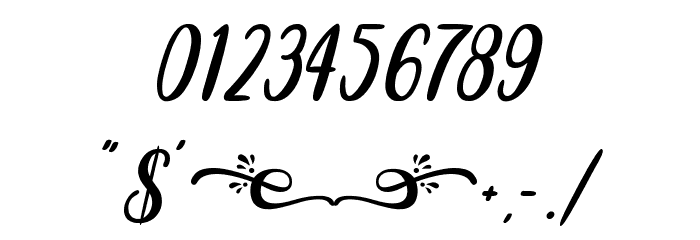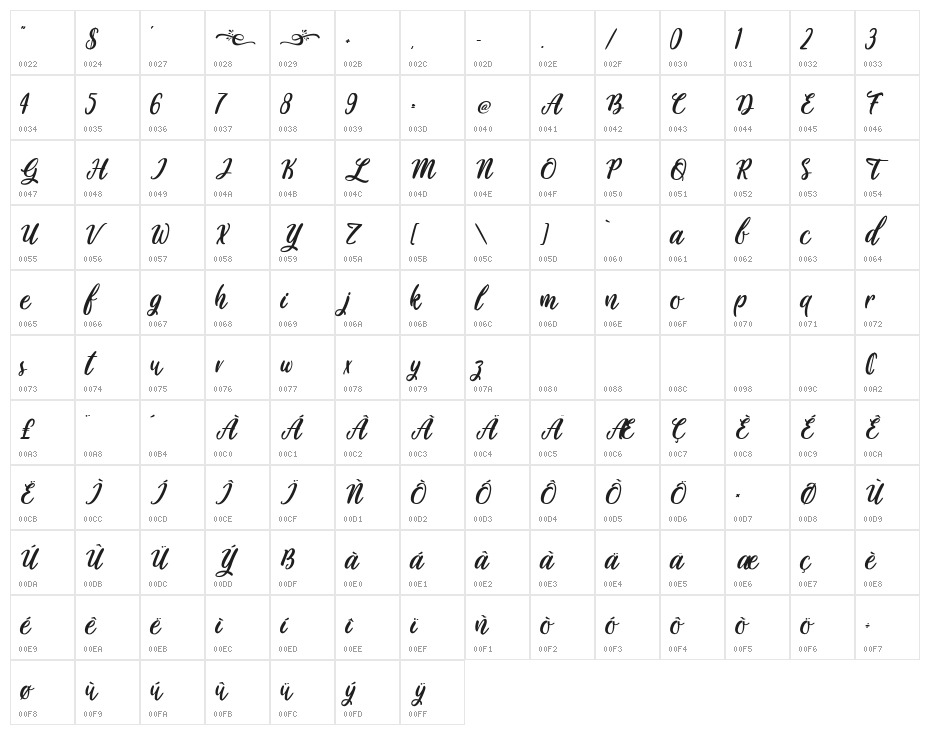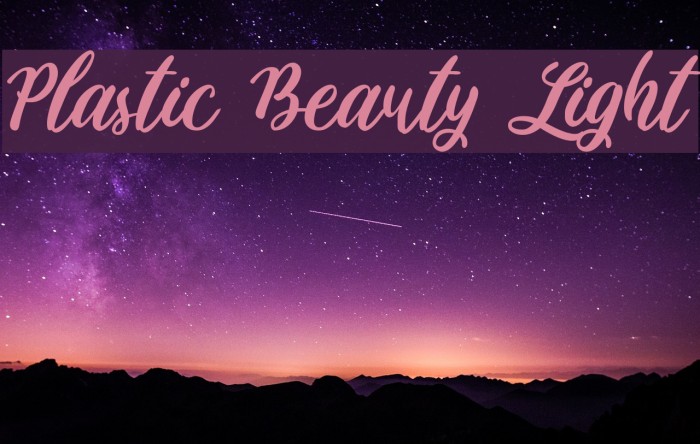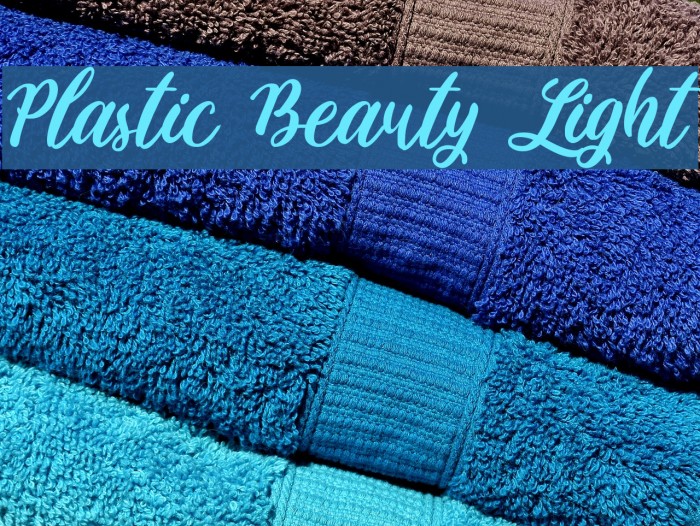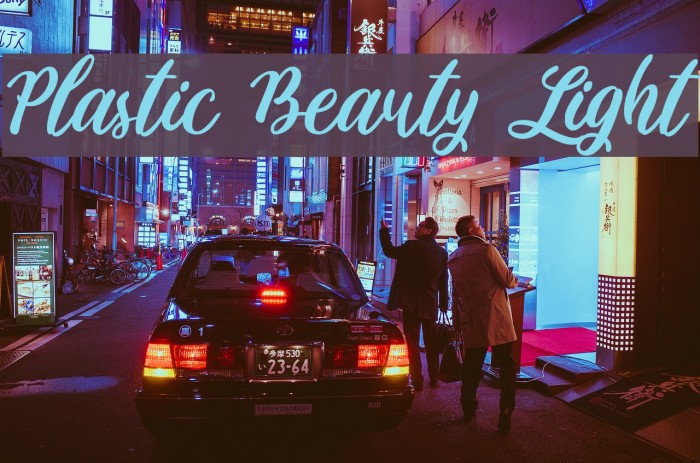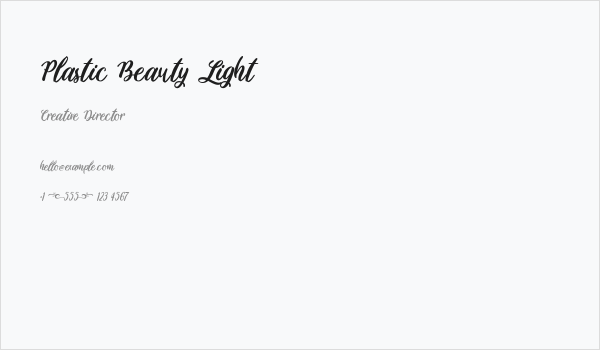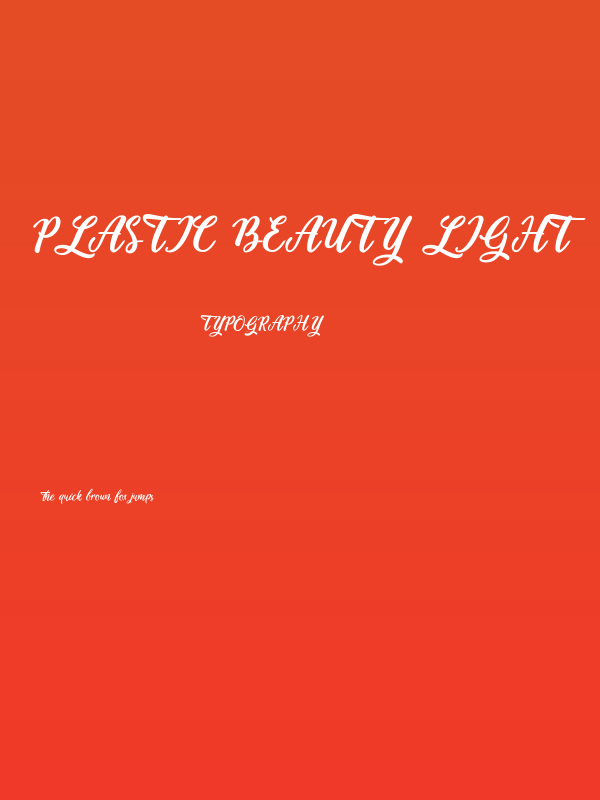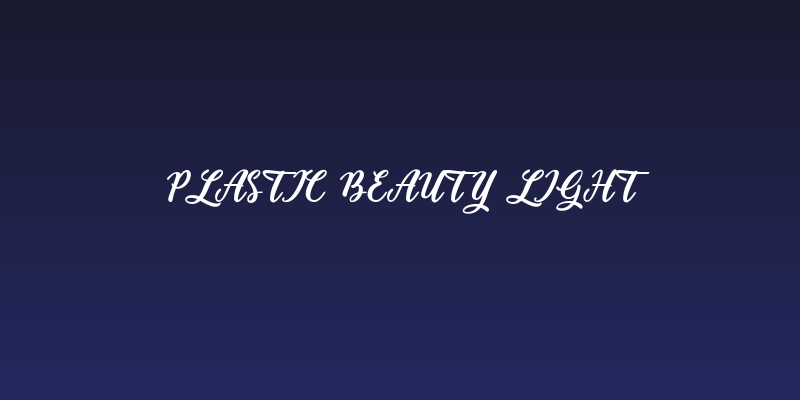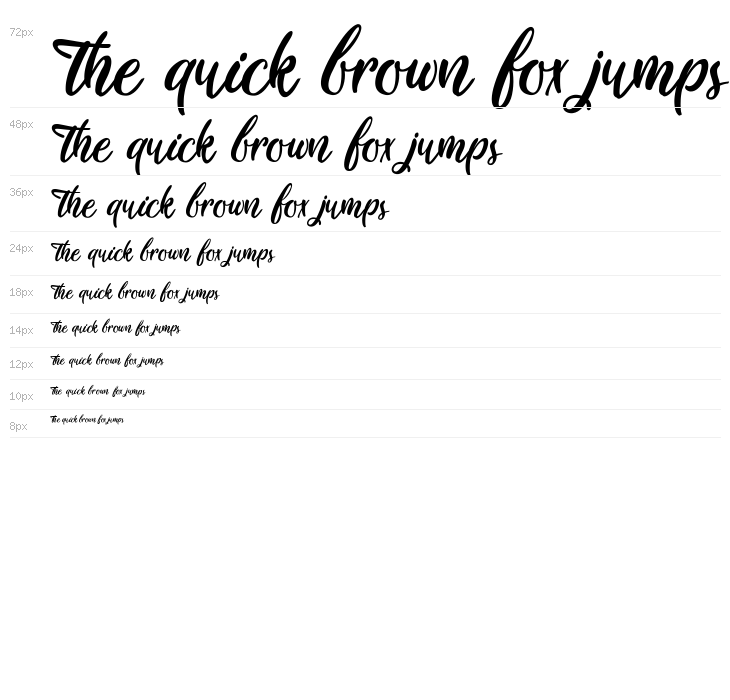
Plastic Beauty Light Font
Plastic Beauty Light Description
This font exudes a sense of elegance and fluidity, characterized by its cursive, handwritten style. The letters are connected with smooth, flowing strokes, giving it a graceful and sophisticated appearance. The uppercase letters are bold and prominent, while the lowercase letters maintain a consistent flow, enhancing readability. The numerals are distinct and well-proportioned, complementing the overall aesthetic. Special characters are artistically designed, adding a decorative touch. This font is perfect for projects that require a personal, artistic flair.
| Overall Style | Elegant, Artistic |
| Proposed Projects | Ideal for wedding invitations, greeting cards, personal branding, and artistic projects. |